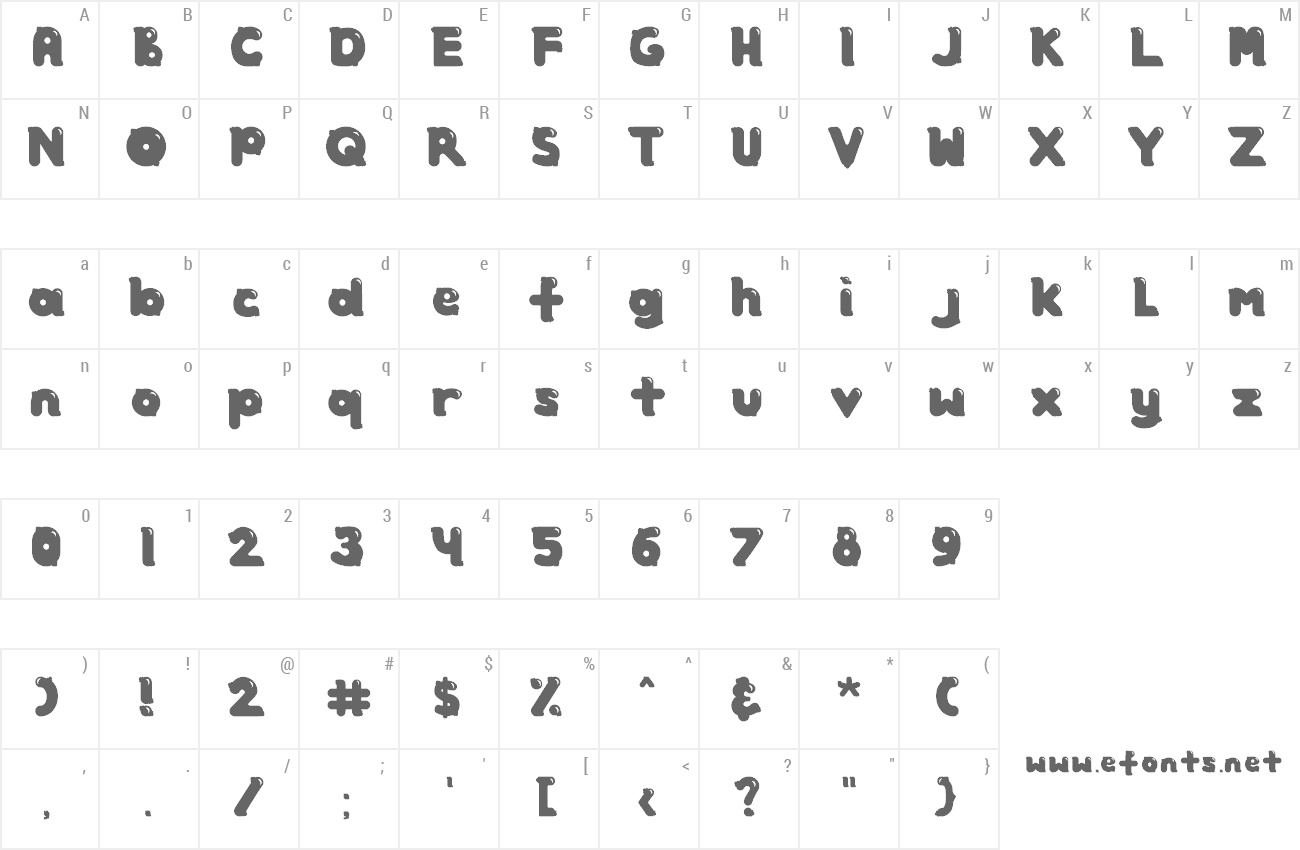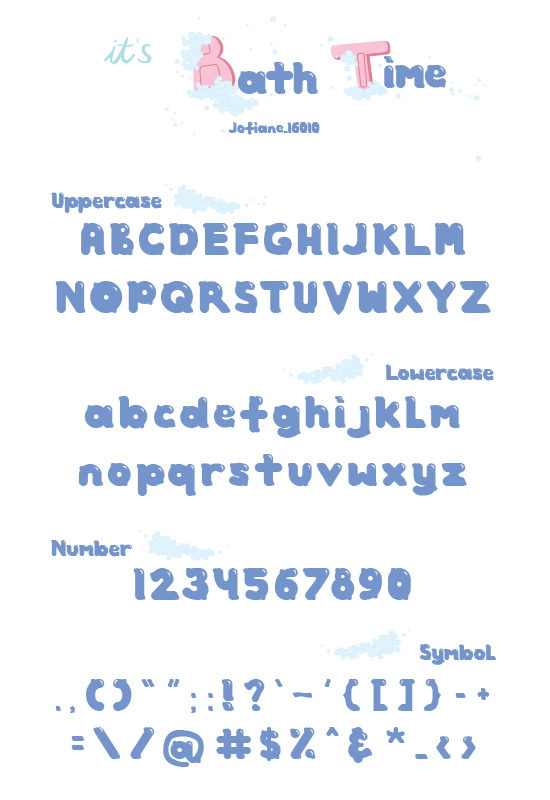
| Font name: | Bath Time |
| Author: | jofiane |
| Note by jofiane | |
Bath Time font is a font to tell the innocent side of babies' and children's bath time. It's easy to read and fun to use. It also looks great on every media! :) Free for personal use. For professional, commercial work and business inquiries, please contact jofianrt@gmail.com Donations are welcomed https://www.paypal.me/jofianrt |